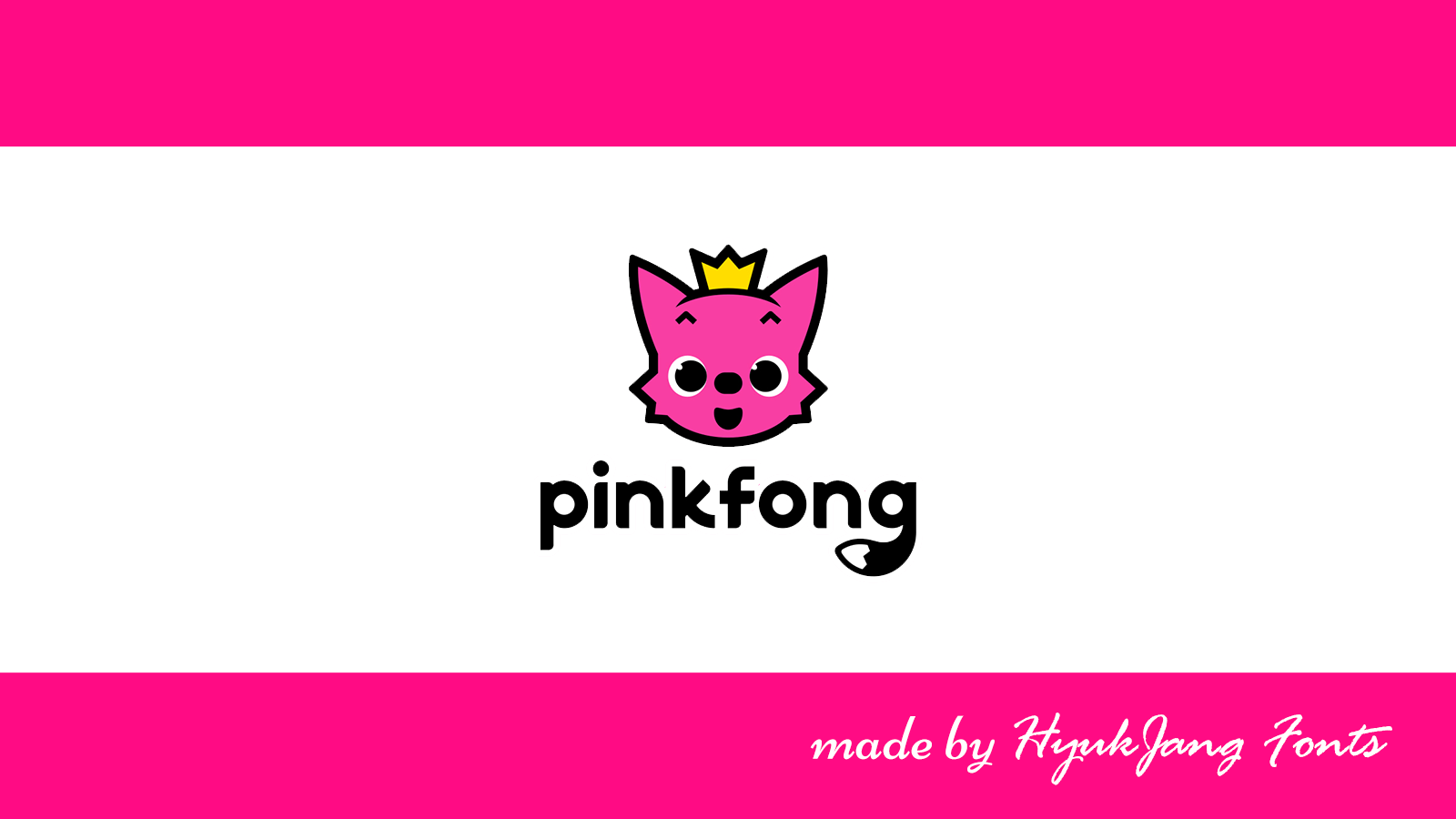
Font Pinkfong Logo
Font Pinkfong Logo - Pinkfong's 10th anniversary was celebrated in 2020, and a new logo was introduced in june to mark the occasion. The pinkfong logo font looks like a modified version of alio text bold. Perhaps you could do a small caps version reminiscent of the 2014 pinkfong wordmark. Seems to be a custom font to me. Thanks for fixing it, man! There's a strong chance that the pinkfong logo font is a modified version of alio text bold.
Pinkfong's 10th anniversary was celebrated in 2020, and a new logo was introduced in june to mark the occasion. Thanks for fixing it, man! The pinkfong logo font looks like a modified version of alio text bold. Seems to be a custom font to me. Perhaps you could do a small caps version reminiscent of the 2014 pinkfong wordmark. There's a strong chance that the pinkfong logo font is a modified version of alio text bold.
Thanks for fixing it, man! Pinkfong's 10th anniversary was celebrated in 2020, and a new logo was introduced in june to mark the occasion. Perhaps you could do a small caps version reminiscent of the 2014 pinkfong wordmark. The pinkfong logo font looks like a modified version of alio text bold. Seems to be a custom font to me. There's a strong chance that the pinkfong logo font is a modified version of alio text bold.